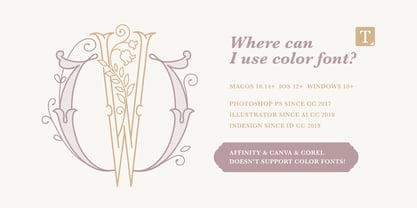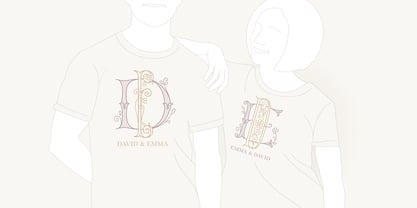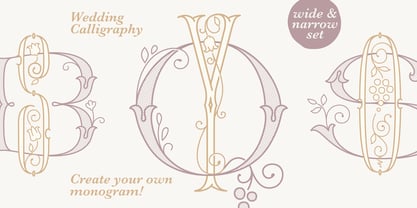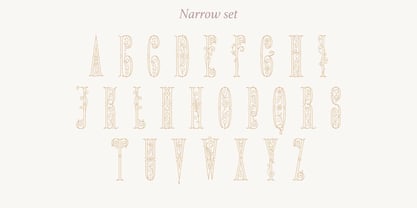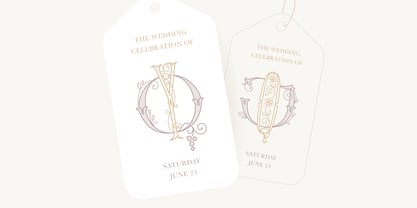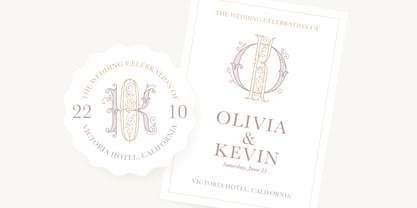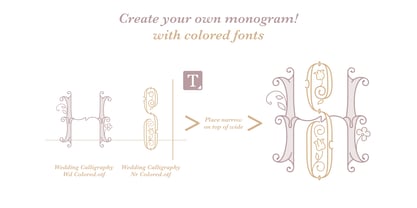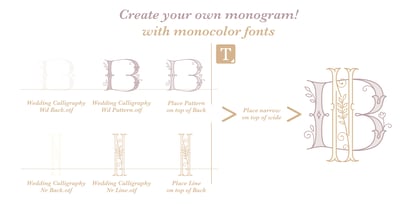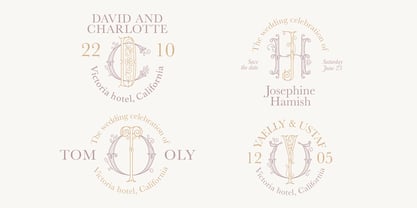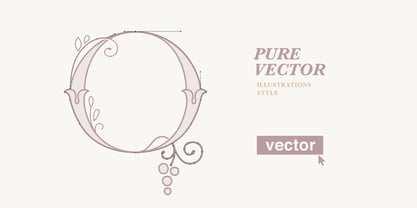
Wedding Calligraphy
The Wedding Calligraphy Font Family was designed by Roman Korolev and published by Kaer. Wedding Calligraphy contains 7 styles and family package options. More about this family
Wedding Calligraphy is a font family in elegant historical style with floral and vine-inspired details, evoking a romantic vintage and Art Nouveau aesthetic. Soft pastel tones and fine linework give the alphabet a light, graceful, hand-drawn feel. Perfect for wedding monograms, invitations, crests, logos, stationery, seals, and decorative branding elements.
You’ll get the set includes Wide and Narrow capitals, allowing flexible and balanced monogram compositions.